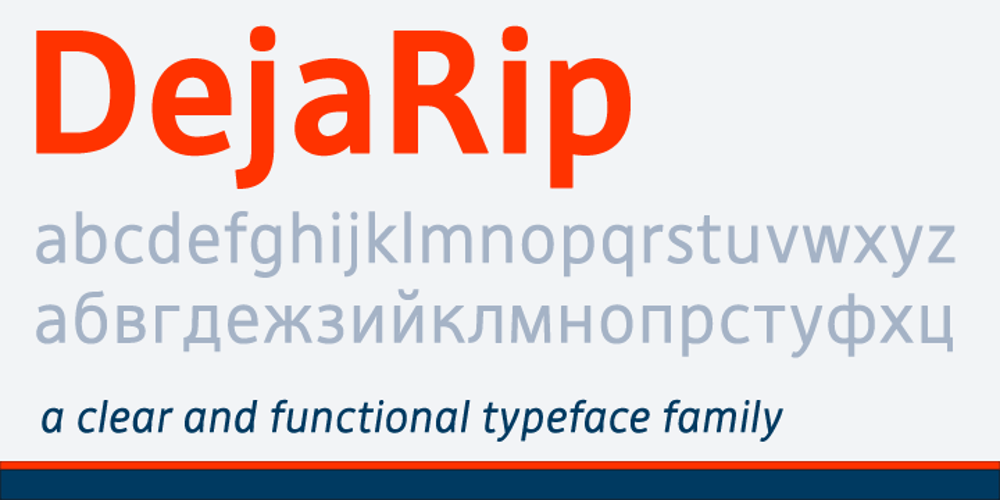
Deja Rip
Deja Rip font
Deja Rip Font Family was designed by Fred Bordfeld, Elena Albertoni and published by Anatoletype. Deja Rip contains 6 styles and family package options. DejaRip is a contemporary, neutral, all-purpose sans-serif. It is modest and inconspicuous thanks to its basic, natural shapes; yet it lends a remarkable sense of clarity and accuracy to the overall design. DejaRip was originally designed for a mobile phone interface. Although it was eventually developed into a much more versatile family, DejaRip remains particularly readable on screen. The DejaRip family is an ideal solution for corporate design. DejaRip’s extended character set includes Unicode Latin Extended A and B, as well as full support of Cyrillic. Small caps for all languages are also included.